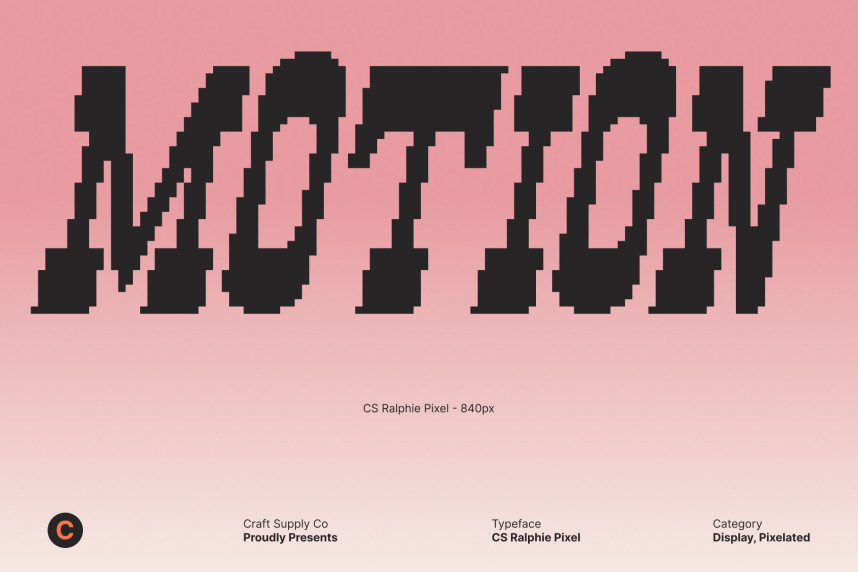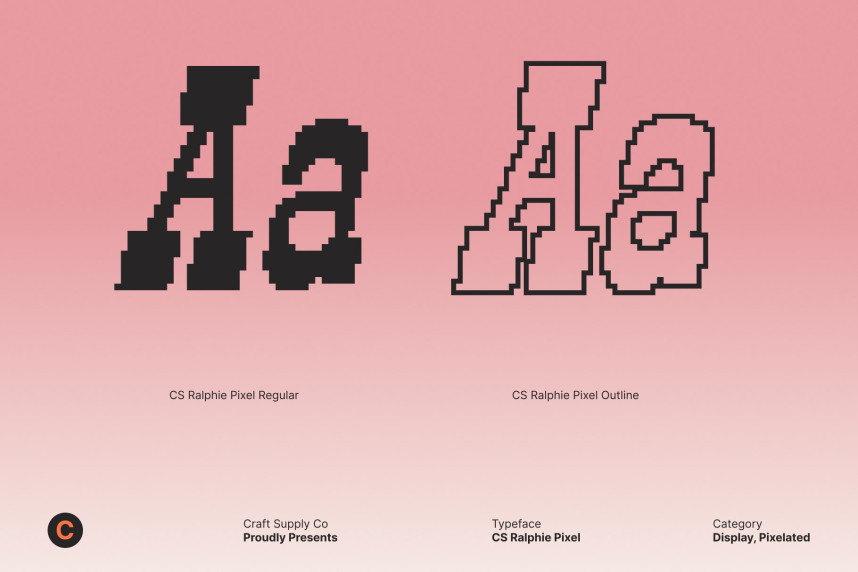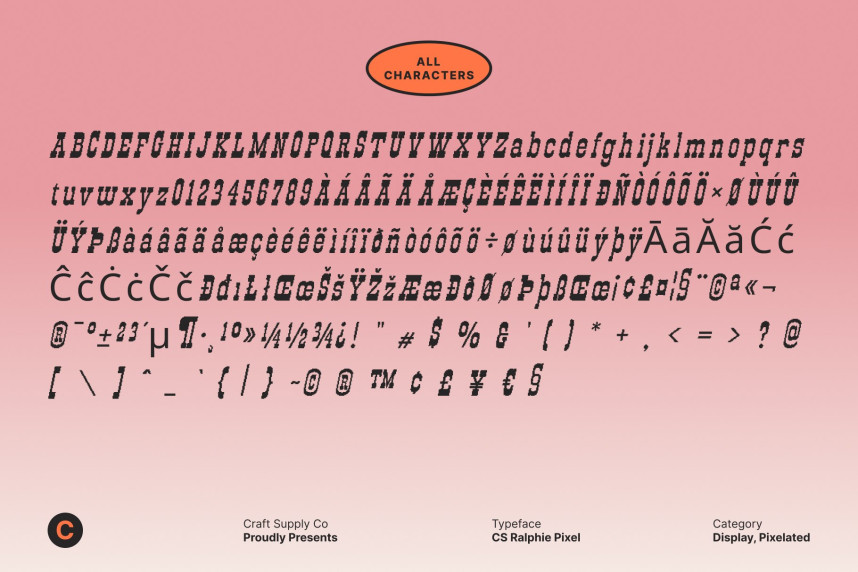
CS Ralphie Pixel Font
CS Ralphie Pixel Font – Western Display Font with Slab Serif and Reverse Contrast Old Western Spirit Meets Pixel Character. This is a striking display font that channels the raw spirit of the old Western era, inspired by vintage frontier signage, saloon posters, and rugged hand-painted lettering reimagined through a distinctive pixel style. This digital, block-based construction adds a nostalgic tech aesthetic, evoking early computer graphics, arcade screens, and retro displays while preserving a bold western identity.